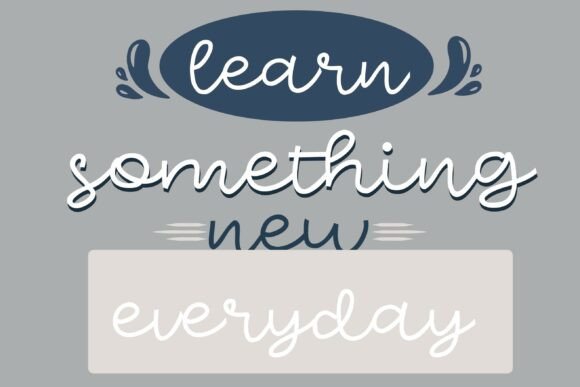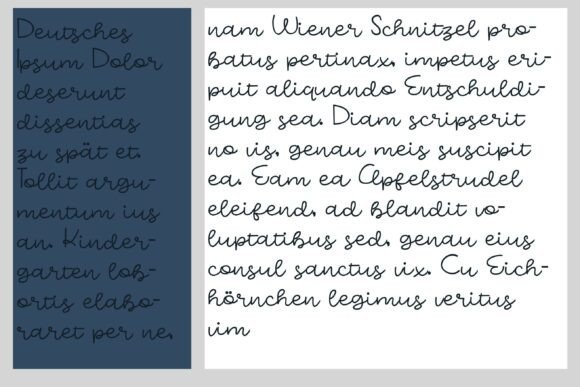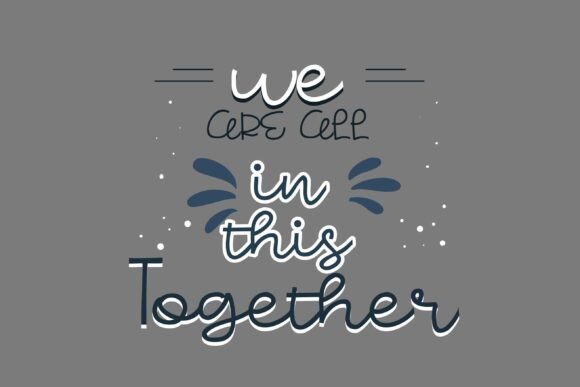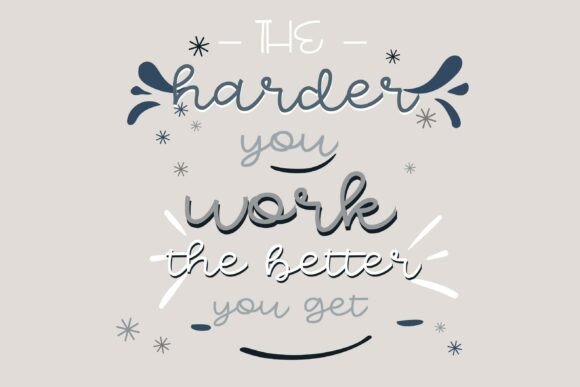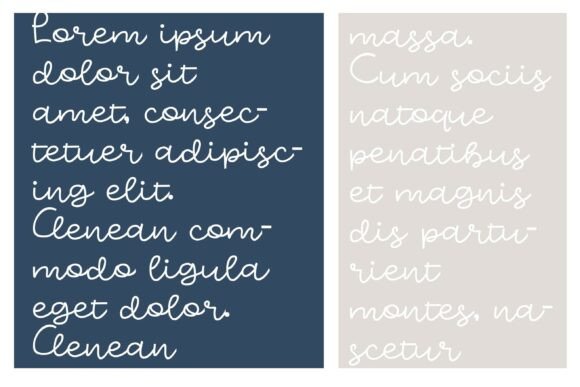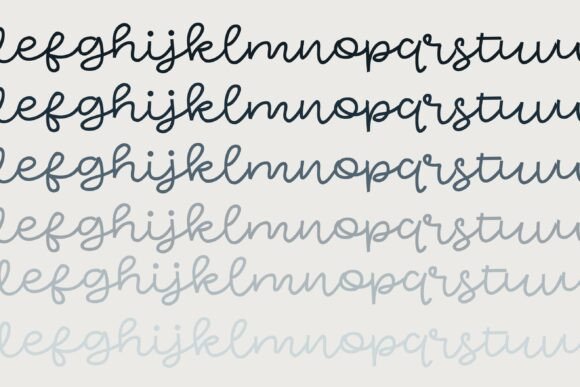
Introducing Champignon Font: A Hand-Crafted Script with a Personal Touch
Are you looking for a font that adds a personal touch to your designs? Look no further than Champignon Font, a beautiful hand-crafted script that is perfect for a variety of projects. This casual script font features a print-like uppercase style that is both elegant and approachable. In this article, we’ll take a closer look at Champignon Font, its features, and how you can use it to elevate your designs.
A hand-crafted font is a font that is designed to look like it was written by hand. This type of font is often used for invitations, greeting cards, and other items where a personal touch is desired. Handwritten fonts can be either formal or informal, and they can be used for a variety of purposes. They are perfect for designers and crafters who want to add a unique and personal element to their work.
Features of Champignon Font
Champignon Font is a versatile hand-crafted font that offers a range of features that make it perfect for a variety of projects. Some of its key features include:
- Print-like uppercase style: Champignon Font features a print-like uppercase style that is both elegant and approachable.
- Bold, light, and stencil versions: This font comes in three different versions: bold, light, and stencil. This allows you to choose the perfect style to suit your project.
- Hand-crafted look: Champignon Font is designed to look like it was written by hand, giving it a unique and personal touch.
- Casual script style: This font features a casual script style that is perfect for a variety of projects, from invitations to greeting cards.
Uses for Champignon Font
Champignon Font is a versatile font that can be used for a variety of projects. Some of the most popular uses for this font include:
- Invitations: Champignon Font is perfect for creating invitations for weddings, parties, and other special events.
- Greeting cards: This font is great for creating greeting cards for birthdays, holidays, and other special occasions.
- Signs and posters: Champignon Font can be used to create eye-catching signs and posters for a variety of events and promotions.
- Digital projects: This font can be used for digital projects, such as social media graphics, blog posts, and more.
Tips for Using Champignon Font
Here are a few tips for using Champignon Font in your designs:
- Use it sparingly: Champignon Font is a bold font, so it’s best to use it sparingly to add emphasis to your design.
- Pair it with other fonts: This font pairs well with other fonts, such as serif and sans-serif fonts. Experiment with different pairings to find the one that works best for your project.
- Experiment with colors: Champignon Font looks great in a variety of colors. Experiment with different colors to find the one that works best for your project.
Champignon Font is a beautiful hand-crafted font that is perfect for designers and crafters who want to add a personal touch to their work. With its print-like uppercase style, bold, light, and stencil versions, and casual script style, this font is versatile and easy to use. Whether you’re creating invitations, greeting cards, or digital projects, Champignon Font is a great choice. So why not give it a try and see how it can elevate your designs?